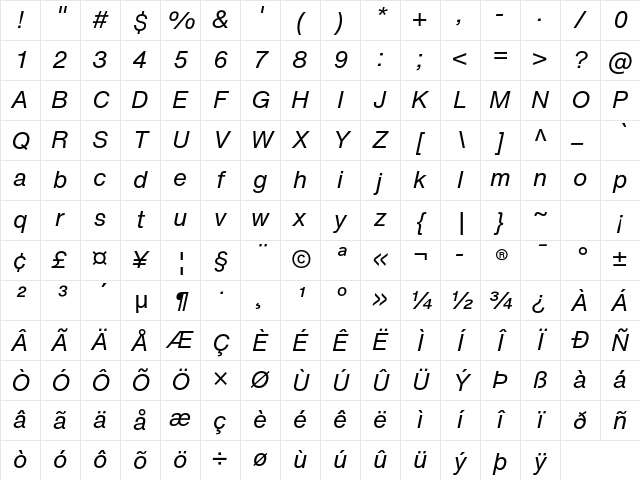
Regular Italic
Foundry: Monotype Imaging Inc.
Designer: Max Miedinger, Charles Nix, Monotype Studio, Jan Hendrik Weber
Regular is a composed and adaptable typeface that performs quietly and consistently across a wide range of design contexts. The slanted form adds forward momentum and visual energy.